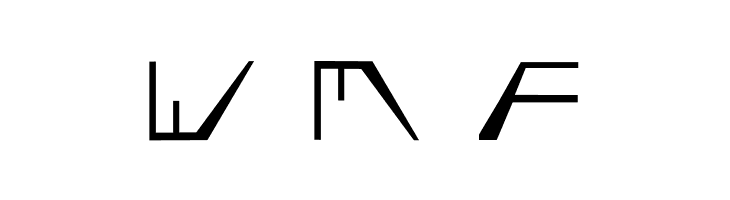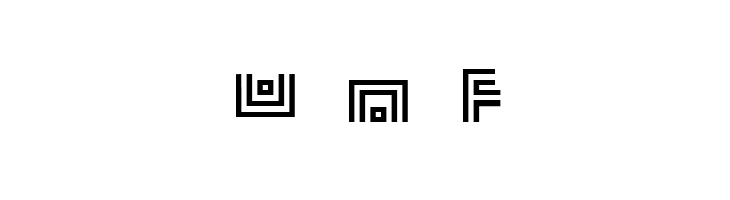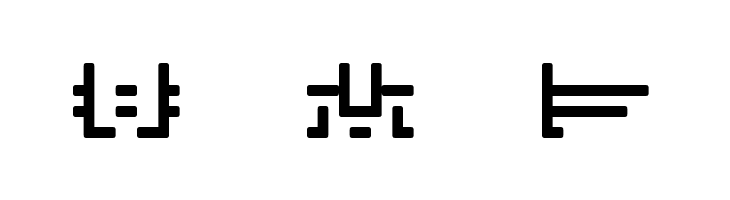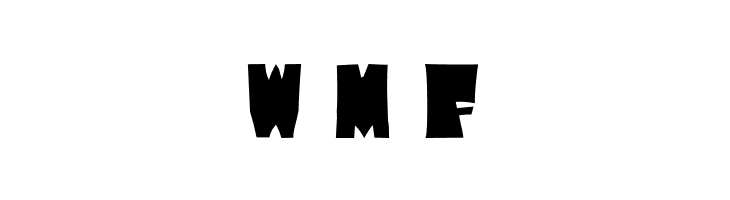
A modern, unicase font with elongated, narrow characters and consistent stroke width.
A geometric, maze-like font with a futuristic and digital aesthetic.
A geometric, angular font with a modern and minimalist design.
A bold, graffiti-inspired font with angular, geometric shapes and a rebellious aesthetic.
A tall, narrow, hand-drawn font with a unique and artistic style.
A bold, angular font with a strong, geometric style.
An intricate, claw-like decorative font with sharp, swirling elements.